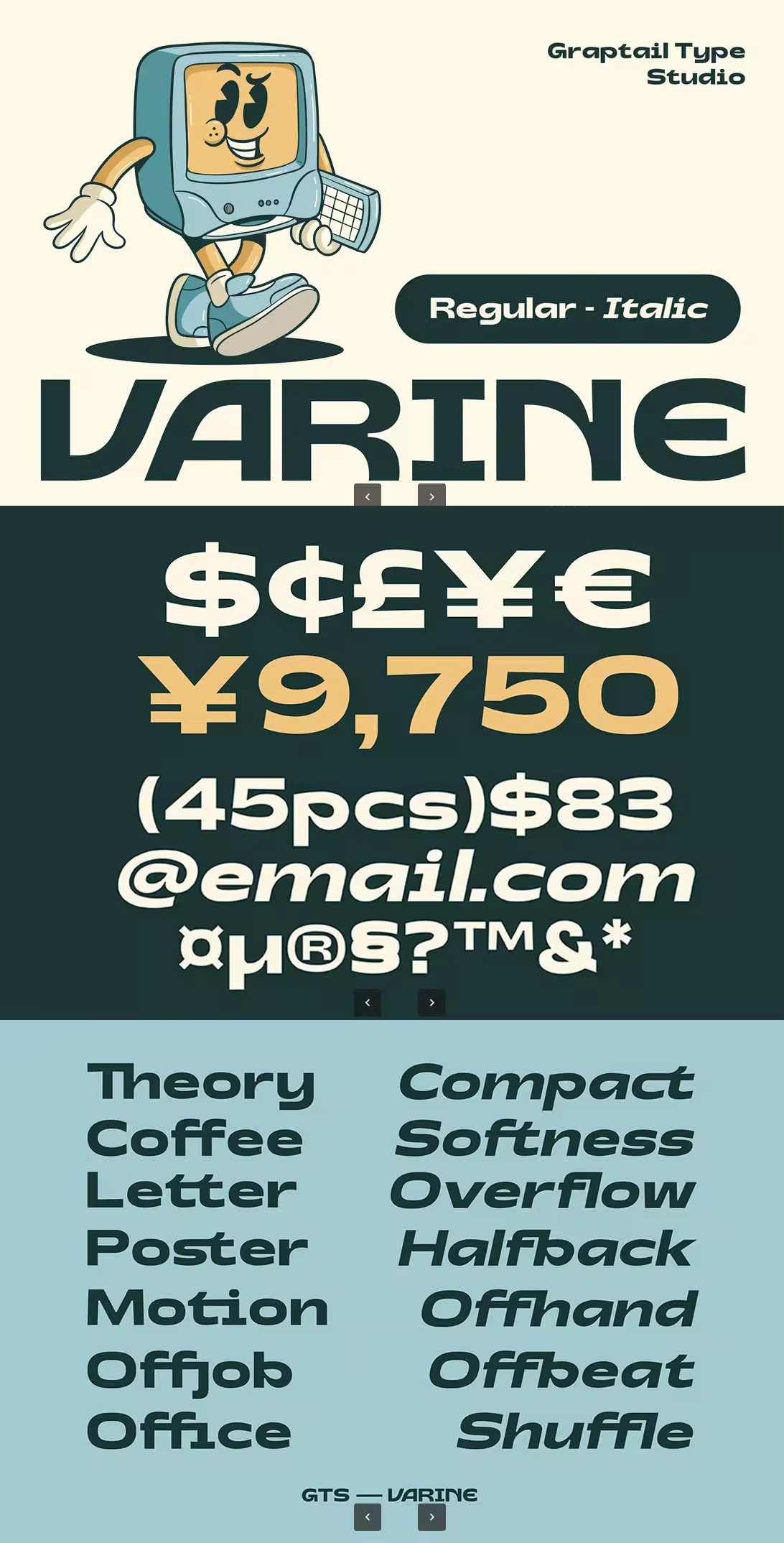
Gts Varine is a bold wide display font built with strong, confident letterforms that instantly command attention. Its wide proportions give your typography a powerful visual impact, making it ideal for designs that need to stand out clearly and decisively.
This font includes 5 stylistic features and 19 ligature features, allowing you to create expressive, flexible, and refined typographic compositions. Gts Varine also comes in both regular and italic styles, giving you more freedom to emphasize motion, contrast, and hierarchy in your layouts.